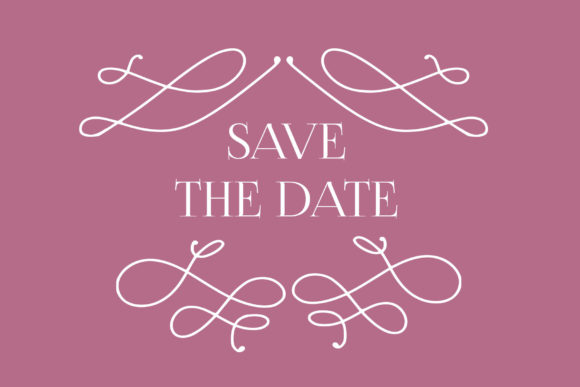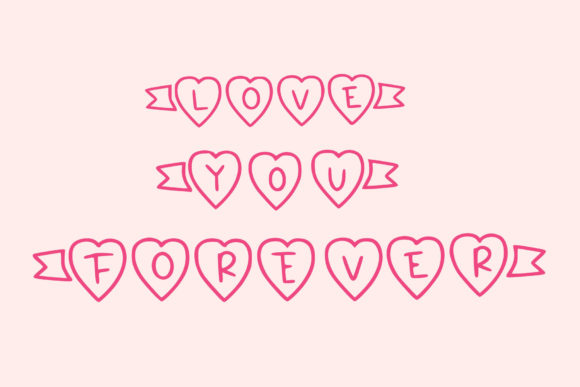
Introduction to Love Cute Ornaments Font
Have you ever found yourself rummaging through your craft supplies, searching for the perfect embellishment to bring your creative project to life? For many designers, the hunt for the ideal decorative element can be a tedious and time-consuming process. However, what if you could have access to a versatile and high-quality design resource that would make your life easier?
Enter the Love Cute Ornaments Font, a delicate and useful dingbats font that is perfect for a variety of creative applications. Whether you’re working on a digital design, creating a presentation, or crafting greeting cards, this font is an invaluable asset. With its transparent background and free download option, it’s easy to incorporate into your projects, making it a must-have for any designer.
Key Features of Love Cute Ornaments Font
- High-quality design resource ideal for creative projects, including Christmas cards, gift tags, and other holiday-themed materials.
- Features a transparent background, allowing for seamless integration with any design element.
- Includes a variety of ornaments and decorations, offering endless possibilities for creative expression.
- Designed with a cute and playful aesthetic, perfect for adding a touch of whimsy to any design project.
Honest Review: Love Cute Ornaments Font
I recently had the chance to work with the Love Cute Ornaments Font for a creative project, and I must say, it’s a wonderful design resource. The font is available for free download, which is a huge plus for designers on a budget.
Here are some things that work well with this font:
- ✨ High quality design: The Love Cute Ornaments Font has a beautiful, delicate appearance that’s perfect for creating a whimsical atmosphere.
- ✨ Transparent background: This feature makes it easy to use the font on any background, which is super convenient.
- ✨ Customizable: The font can be customized to fit your project’s needs, whether you’re creating a digital or print design.
- ⚠️ Limited font sizes: While the font is available in a range of sizes, it’s not as extensive as some other fonts I’ve used.
- ⚠️ Limited language support: The font only supports a limited range of languages, which may be a problem for international projects.
Overall, I’m really impressed with the Love Cute Ornaments Font. While it may have some limitations, it’s a high-quality design resource that’s perfect for creative projects. I would definitely recommend it to fellow designers looking for a free, high-quality font.
How to Use Love Cute Ornaments Font
Designing with Love Cute Ornaments Font in Canva
Download the Love Cute Ornaments Font and import it into your Canva project. This free download font is perfect for adding a touch of whimsy to your designs. Use it to create custom invitations, party decorations, or social media graphics.
Designing with Love Cute Ornaments Font in Adobe Photoshop/Illustrator
For a high-quality design, use the Love Cute Ornaments Font in Adobe Photoshop or Illustrator. This font is ideal for creating custom illustrations, graphics, or logos. Its transparent background makes it easy to combine with other design elements.
Designing with Love Cute Ornaments Font in PowerPoint/Word
Add a personal touch to your presentations or documents with the Love Cute Ornaments Font. This design resource is perfect for creating custom titles, headings, or graphics. Use it to make your presentations stand out.
Tips for Getting the Most Out of Love Cute Ornaments Font
Use the Love Cute Ornaments Font in conjunction with other design elements, such as illustrations or photographs, to create a unique and eye-catching design. Experiment with different font sizes and colors to add emphasis to your design.
Common Use Cases for Love Cute Ornaments Font
This font is perfect for creative projects, such as custom invitations, party decorations, or social media graphics. It’s also ideal for designing custom illustrations, graphics, or logos.